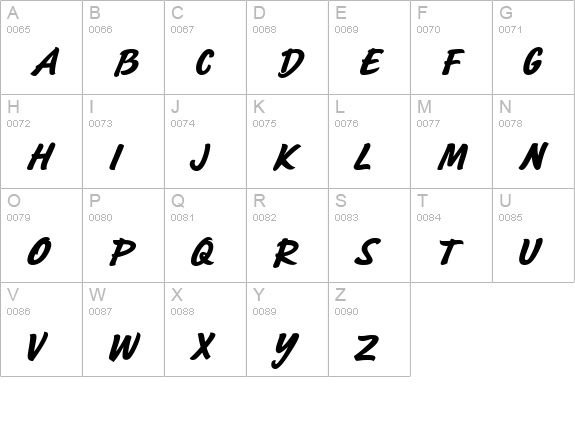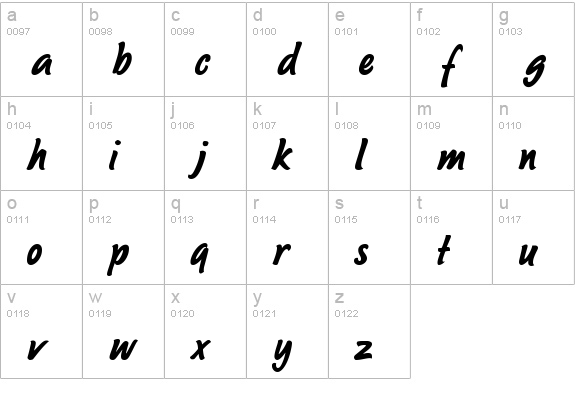
Sayer Script MN Bold Font Details
Sayer Script MN Bold is a strong, high-contrast variant in the Sayer typeface family \xE2\x80\x94 well suited to headlines, attention-grabbing titles, and strong calls-to-action.
Sayer Script MN Bold font is a stunning and elegant typeface that exudes sophistication and charm. With its bold and distinctive letterforms, this font is perfect for adding a touch of luxury to your designs. The flowing script style of Sayer Script MN Bold creates a sense of movement and grace, making it ideal for a wide range of creative projects. What sets Sayer Script MN Bold apart is not just its beauty, but also the fact that it is available for free. Yes, you read that right - you can download this exquisite font at FontsMarket.com without spending a dime. Whether you're working on invitations, branding, or any other design project, Sayer Script MN Bold will elevate your work to new heights. Don't miss out on the opportunity to add this stunning font to your collection today!